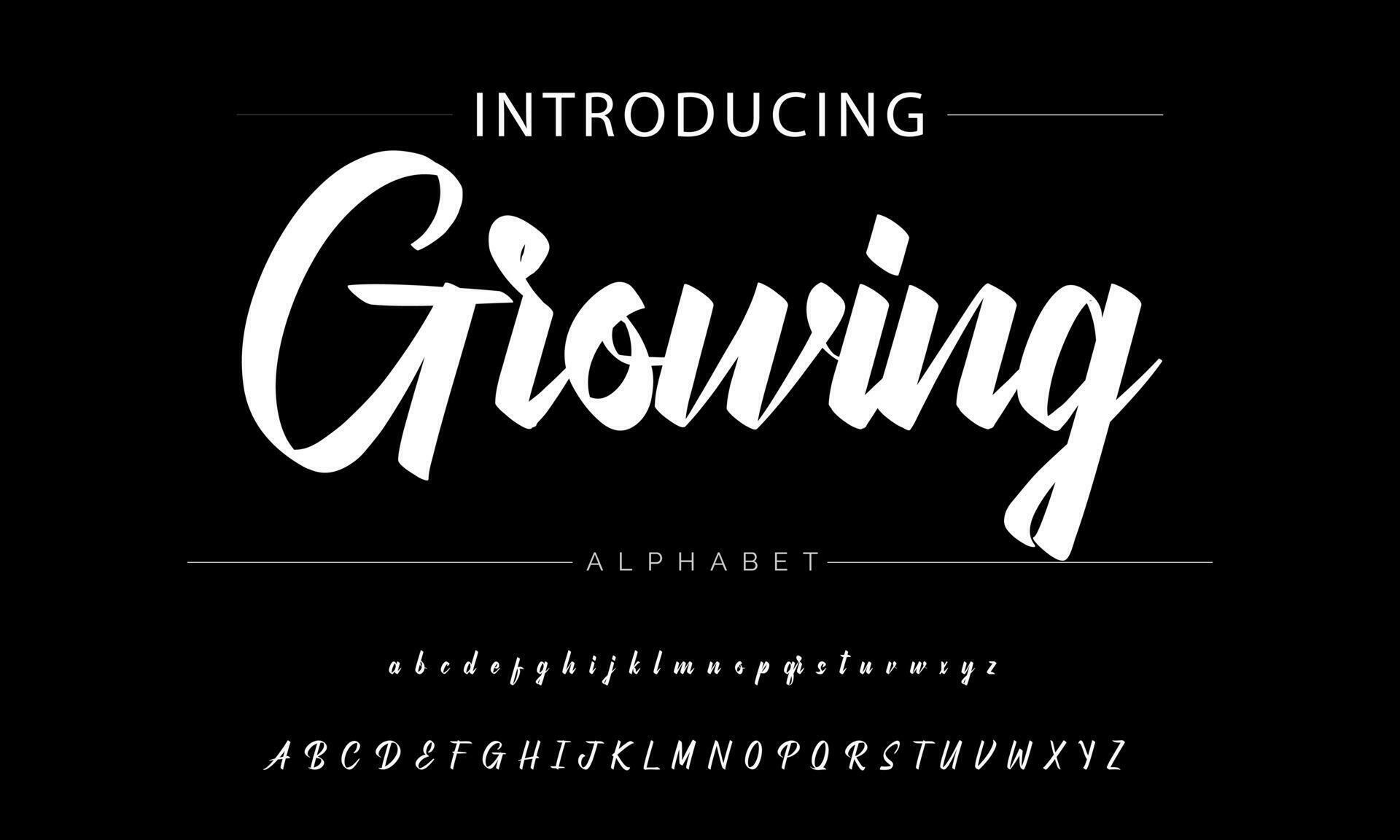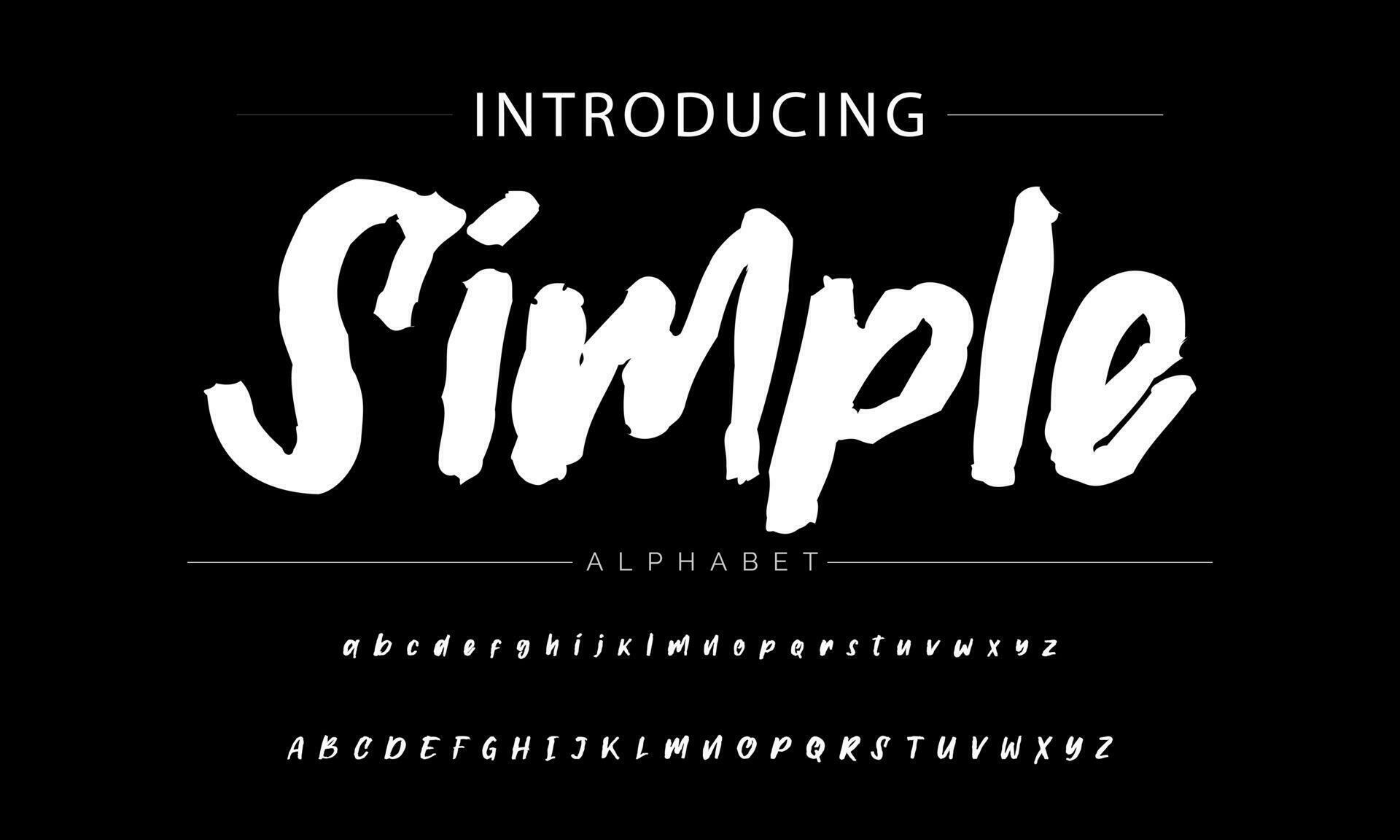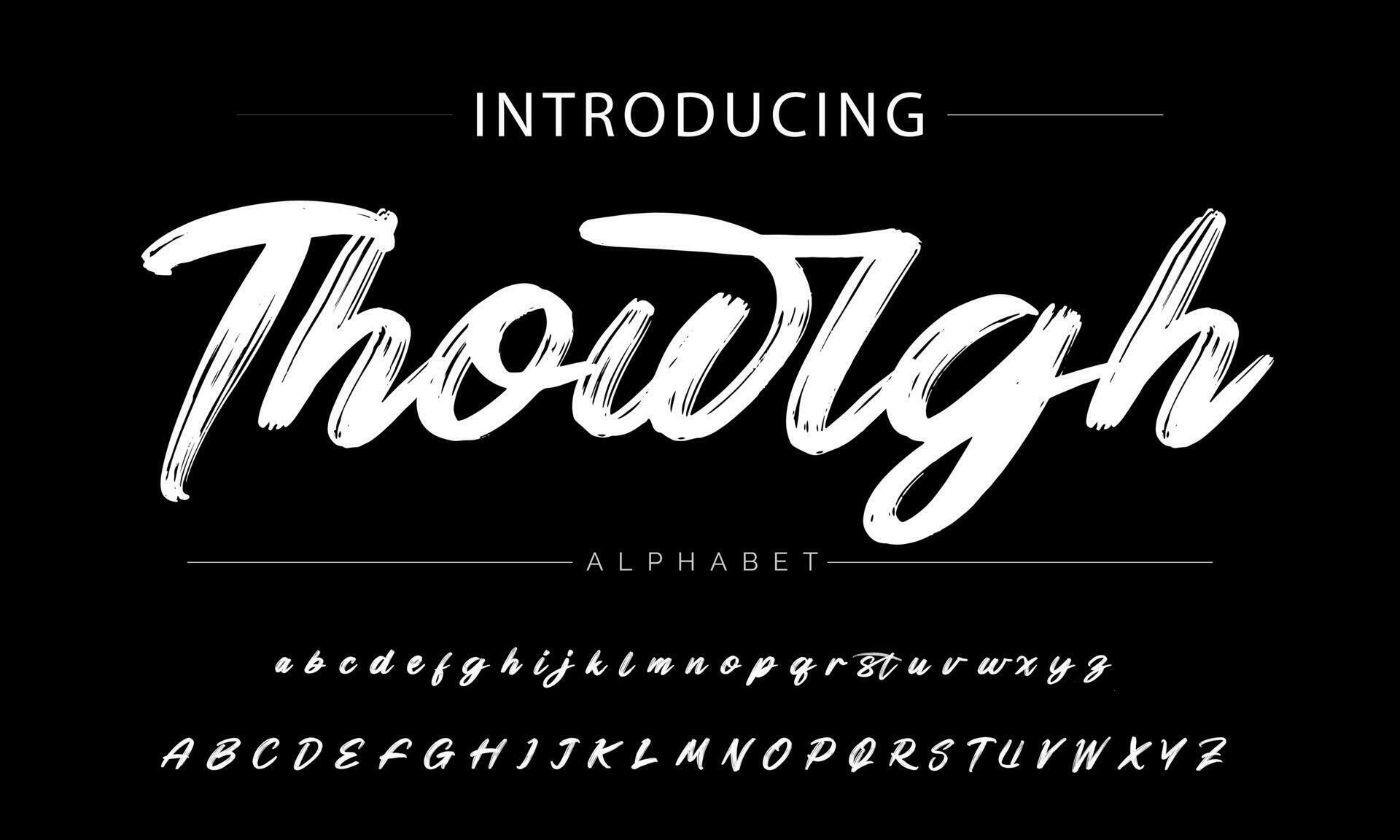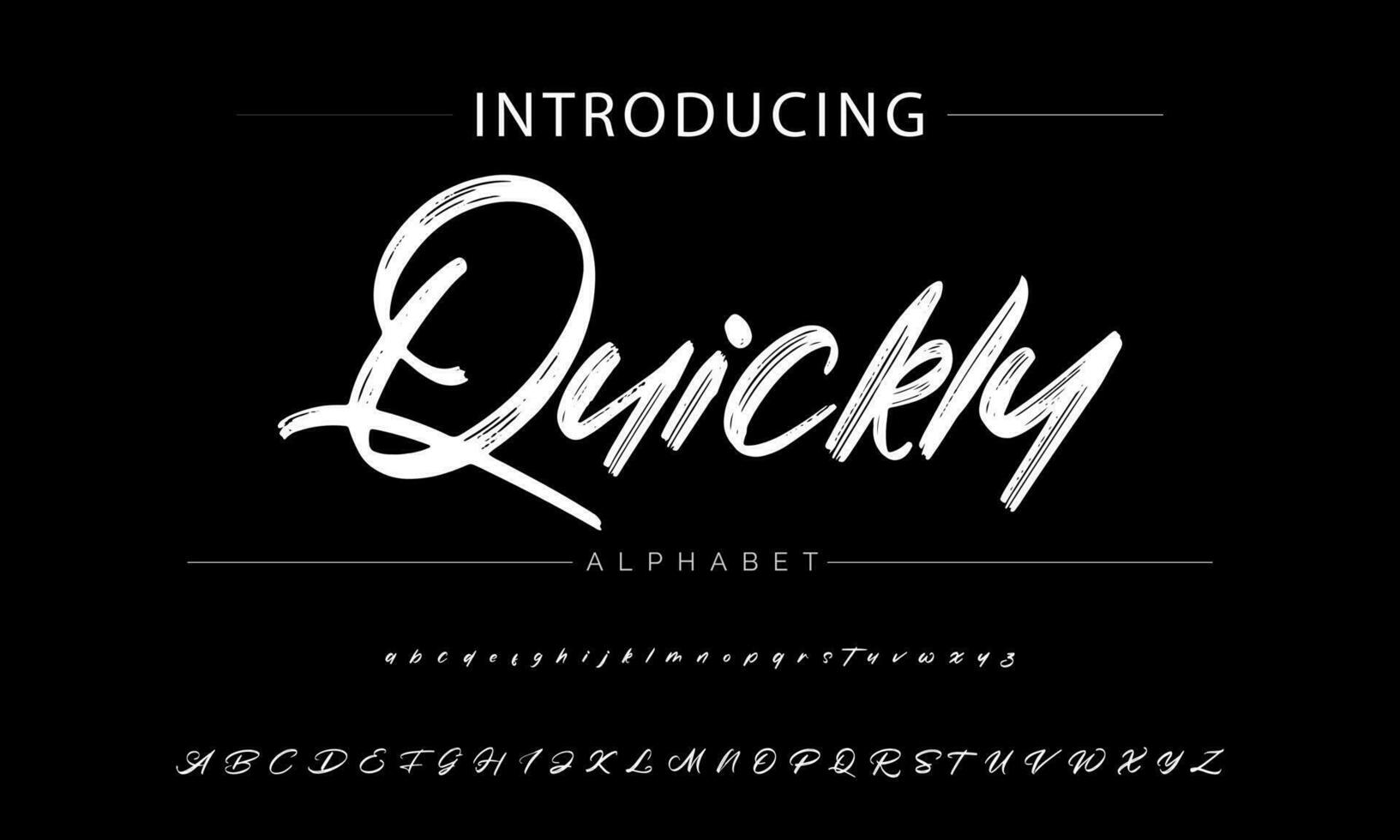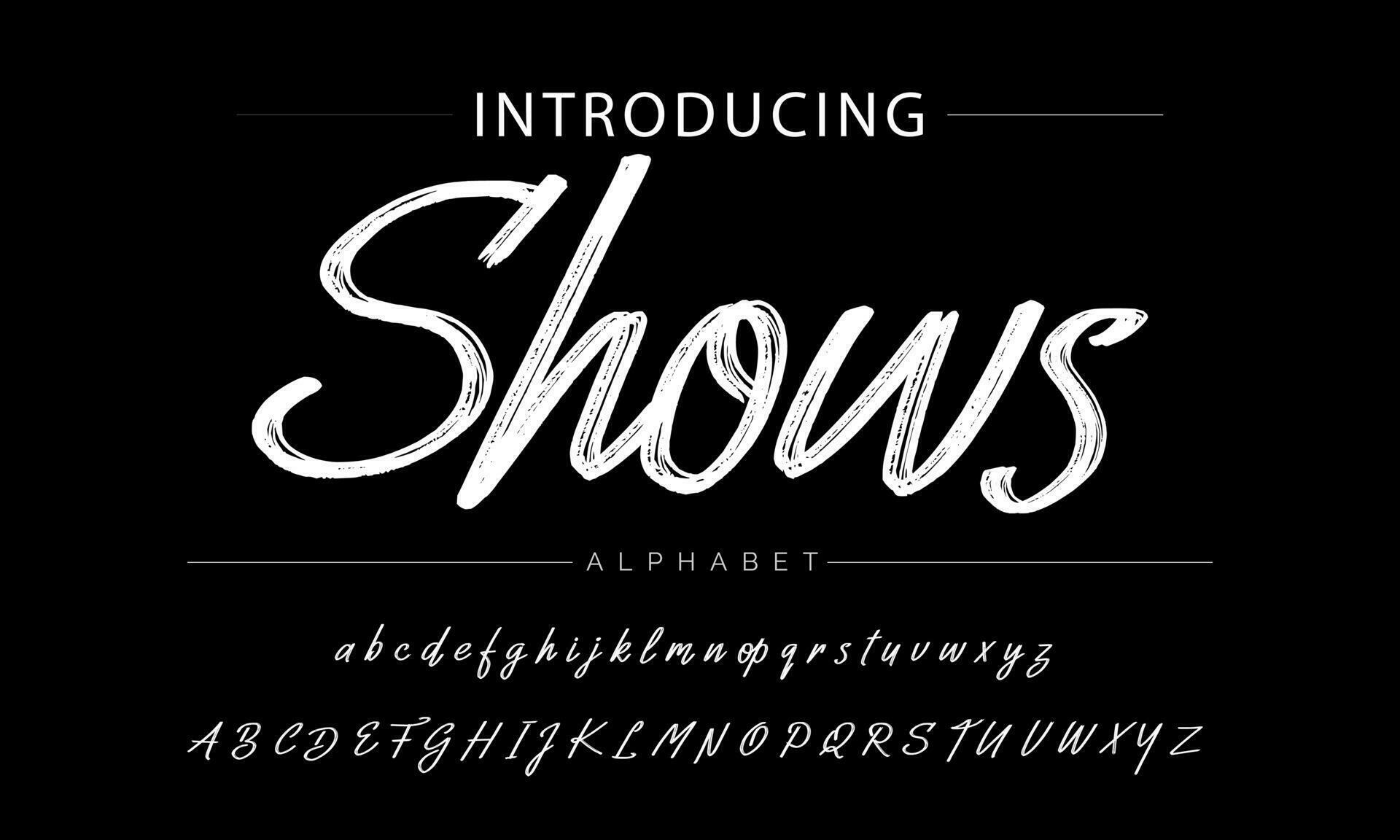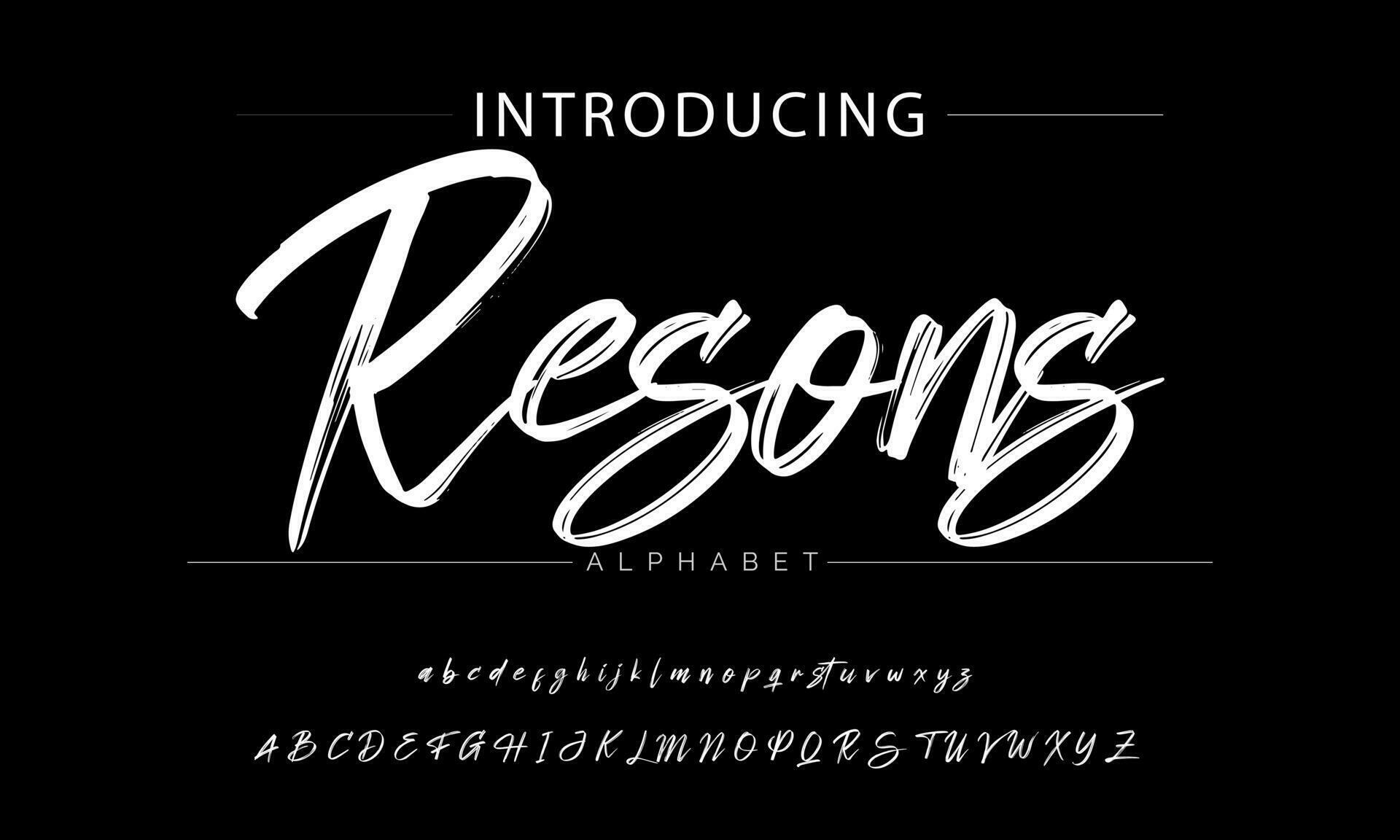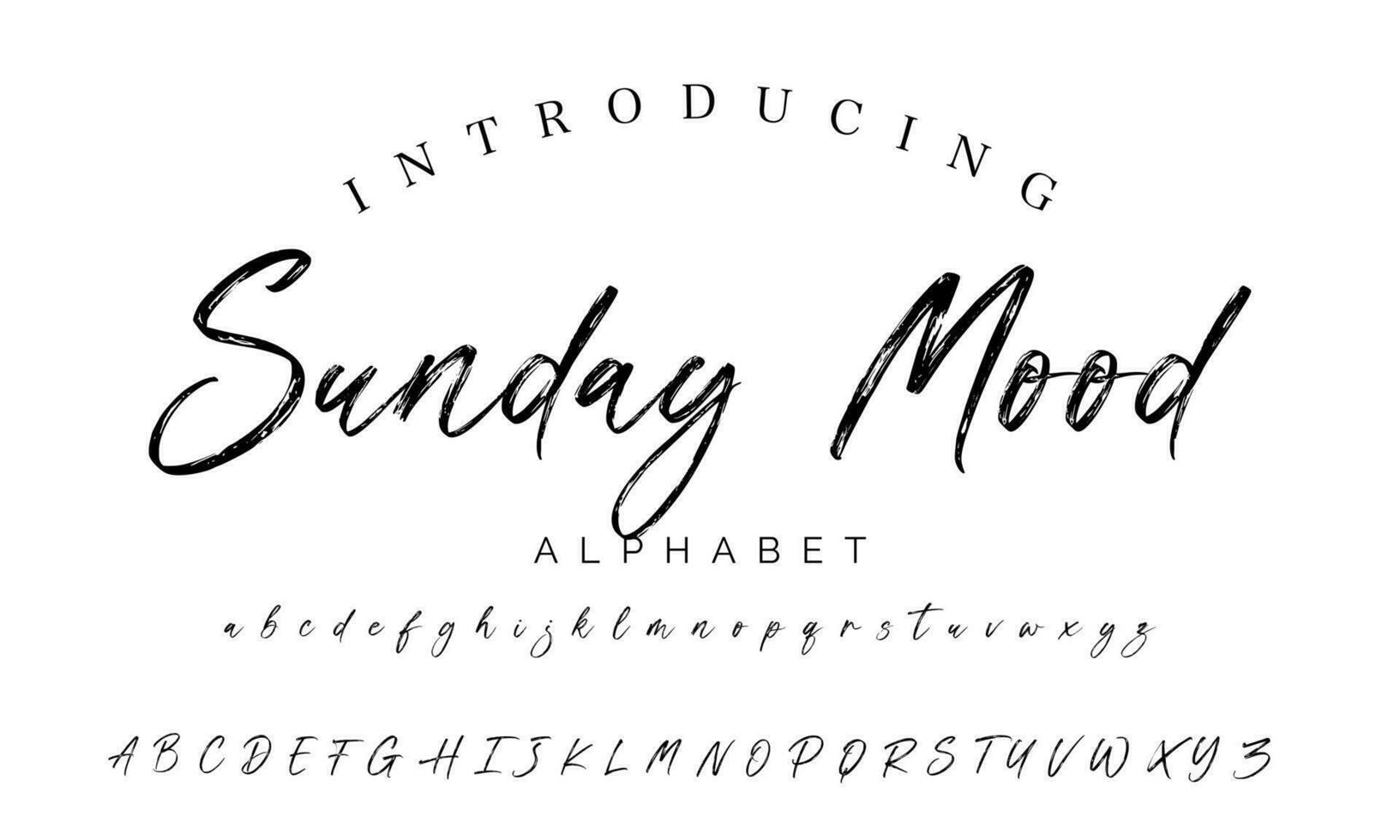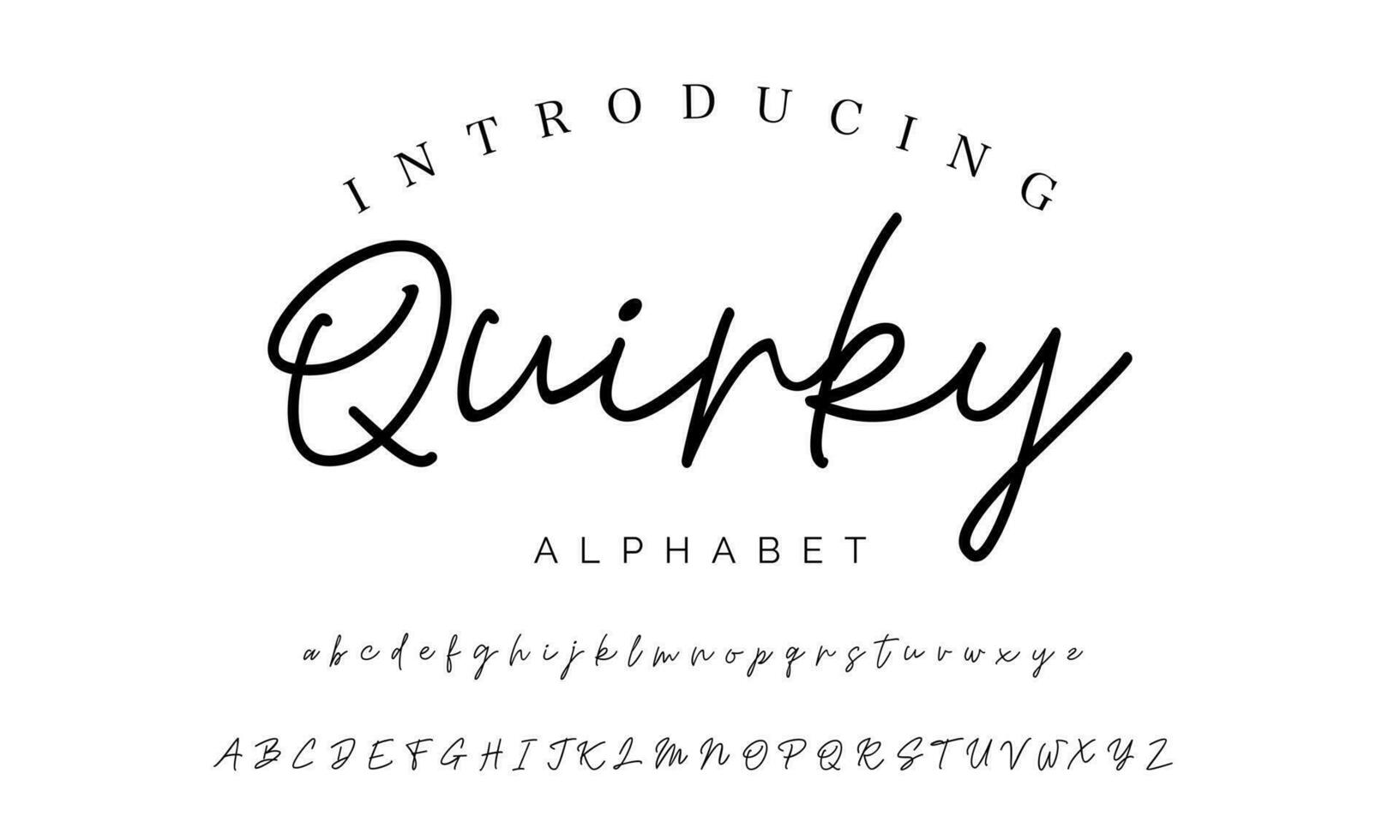
Script Brush Font Similar . So, let's embark on a. Are you looking for the best brush script fonts for your graphic design projects? Offers a unique blend of casual brush strokes and script elements, providing dynamic flow and personality. Free > personal use rsstyle font. A script typeface with 1 style, available from adobe fonts for sync and web. Whether you're designing invitations, branding materials, or anything in between, a brush script font can transform your text into an engaging visual story. Here are the top 40+ brush script fonts available. 100 free fonts alternatives to brush script pro Our website helps you find any font from any image. Using a catalog of over 990k+ fonts (commercial or. What fonts are similar to brush script pro? Explore brush script designed by robert e.
Free > personal use rsstyle font. What fonts are similar to brush script pro? Our website helps you find any font from any image. Whether you're designing invitations, branding materials, or anything in between, a brush script font can transform your text into an engaging visual story. Offers a unique blend of casual brush strokes and script elements, providing dynamic flow and personality. Here are the top 40+ brush script fonts available. Explore brush script designed by robert e. Using a catalog of over 990k+ fonts (commercial or. 100 free fonts alternatives to brush script pro A script typeface with 1 style, available from adobe fonts for sync and web.
40+ Best Brush Script Fonts (Free & Premium) 2023
Script Brush Font Similar Offers a unique blend of casual brush strokes and script elements, providing dynamic flow and personality. A script typeface with 1 style, available from adobe fonts for sync and web. So, let's embark on a. 100 free fonts alternatives to brush script pro Offers a unique blend of casual brush strokes and script elements, providing dynamic flow and personality. Here are the top 40+ brush script fonts available. Whether you're designing invitations, branding materials, or anything in between, a brush script font can transform your text into an engaging visual story. Using a catalog of over 990k+ fonts (commercial or. Free > personal use rsstyle font. Explore brush script designed by robert e. What fonts are similar to brush script pro? Are you looking for the best brush script fonts for your graphic design projects? Our website helps you find any font from any image.
ABSERVE BRUSH Signature Font Calligraphy Logotype Script Brush Font Similar Using a catalog of over 990k+ fonts (commercial or. A script typeface with 1 style, available from adobe fonts for sync and web. 100 free fonts alternatives to brush script pro Whether you're designing invitations, branding materials, or anything in between, a brush script font can transform your text into an engaging visual story. Are you looking for the best. Script Brush Font Similar.
40+ Best Brush Script Fonts (Free & Premium) 2023 Script Brush Font Similar Explore brush script designed by robert e. What fonts are similar to brush script pro? Using a catalog of over 990k+ fonts (commercial or. A script typeface with 1 style, available from adobe fonts for sync and web. 100 free fonts alternatives to brush script pro So, let's embark on a. Free > personal use rsstyle font. Our website helps. Script Brush Font Similar.
ABSERVE BRUSH Signature Font Calligraphy Logotype Script Brush Font Similar Using a catalog of over 990k+ fonts (commercial or. Are you looking for the best brush script fonts for your graphic design projects? Explore brush script designed by robert e. Offers a unique blend of casual brush strokes and script elements, providing dynamic flow and personality. Whether you're designing invitations, branding materials, or anything in between, a brush script font. Script Brush Font Similar.
50 brush script fonts fonts graphic design junction Artofit Script Brush Font Similar Using a catalog of over 990k+ fonts (commercial or. Here are the top 40+ brush script fonts available. What fonts are similar to brush script pro? Explore brush script designed by robert e. Our website helps you find any font from any image. Offers a unique blend of casual brush strokes and script elements, providing dynamic flow and personality. Whether. Script Brush Font Similar.
Brush Signature Font Script Brush Font Similar Whether you're designing invitations, branding materials, or anything in between, a brush script font can transform your text into an engaging visual story. Free > personal use rsstyle font. A script typeface with 1 style, available from adobe fonts for sync and web. Are you looking for the best brush script fonts for your graphic design projects? Using a catalog. Script Brush Font Similar.
ABSERVE BRUSH Signature Font Calligraphy Logotype Script Brush Font Similar Offers a unique blend of casual brush strokes and script elements, providing dynamic flow and personality. Our website helps you find any font from any image. Free > personal use rsstyle font. 100 free fonts alternatives to brush script pro Here are the top 40+ brush script fonts available. Explore brush script designed by robert e. So, let's embark on. Script Brush Font Similar.
Brush Script Font Download Script Brush Font Similar Explore brush script designed by robert e. Whether you're designing invitations, branding materials, or anything in between, a brush script font can transform your text into an engaging visual story. Using a catalog of over 990k+ fonts (commercial or. Here are the top 40+ brush script fonts available. A script typeface with 1 style, available from adobe fonts for sync. Script Brush Font Similar.
Simple Font Similar To Brush Script Basic Idea Typography Art Ideas Script Brush Font Similar Using a catalog of over 990k+ fonts (commercial or. Explore brush script designed by robert e. 100 free fonts alternatives to brush script pro Offers a unique blend of casual brush strokes and script elements, providing dynamic flow and personality. So, let's embark on a. What fonts are similar to brush script pro? Whether you're designing invitations, branding materials, or. Script Brush Font Similar.